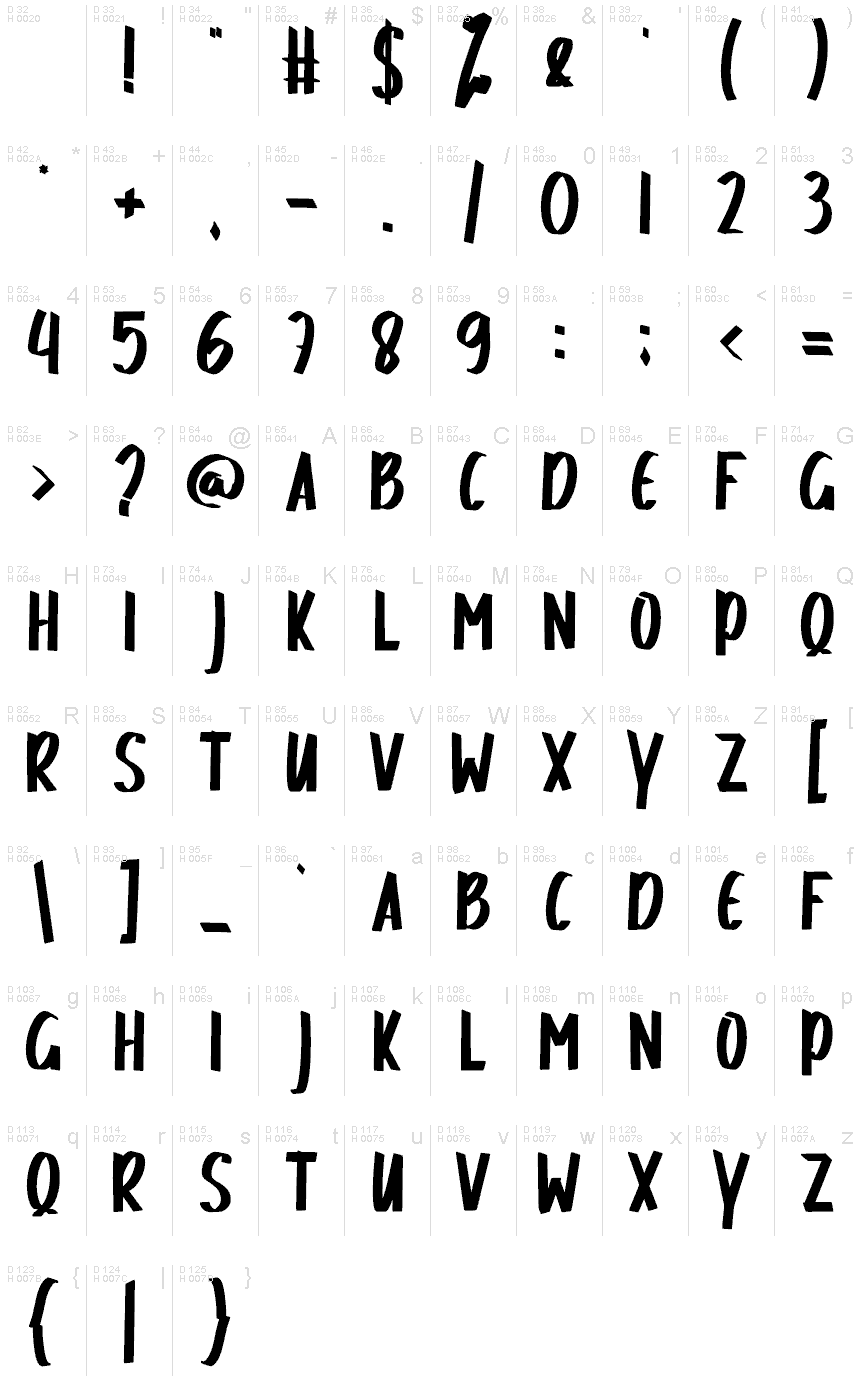
Hulios
Hulios font is a quirky and handwritten free font by Skiiller Studio with a unique style. The condensed width type of letter shapes and the overall artistic touch makes this simple typeface suitable for multiple purposes.
Use it for book covers, movie posters, banners, packaging design, magazine headlines, and website headers. Other possible applications include CDs covers (music bands albums), T-shirt prints, logos & logotype design (limited characters available), web fonts for blogs or more creative topics; finally stationery: letters, business cards, notebooks covers…